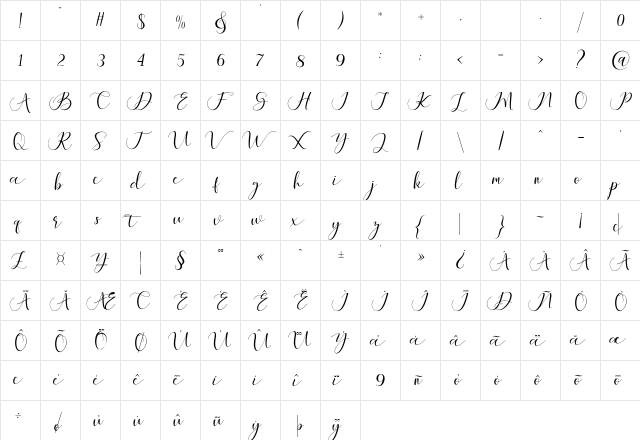
Maheria Script Regular
| Foundry | Munawir/mightype |
| Designer | Munawir |
Design Context for Maheria Script Typeface
Maheria Script brings a calligraphic fluidity to the page — its connecting strokes and expressive curves give it an unmistakably human quality.
Font Pairing: Combine Maheria Script with a simple geometric sans for maximum contrast — the tension between flowing curves and clean structure is a classic typographic pairing.
Pro Tip: Use Maheria Script for short runs of text — names, titles, or taglines. Extended body copy in script faces tires the eye quickly.